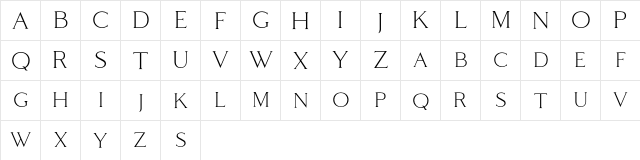
Coldiac Free Regular
Design Context for Coldiac Free Typeface
Coldiac Free is a composed and adaptable typeface that performs quietly and consistently across a wide range of design contexts.
Pro Tip: Use Coldiac Free in both headline and body roles to test its range before committing to a single application.